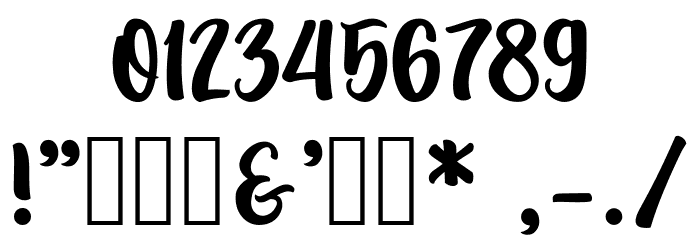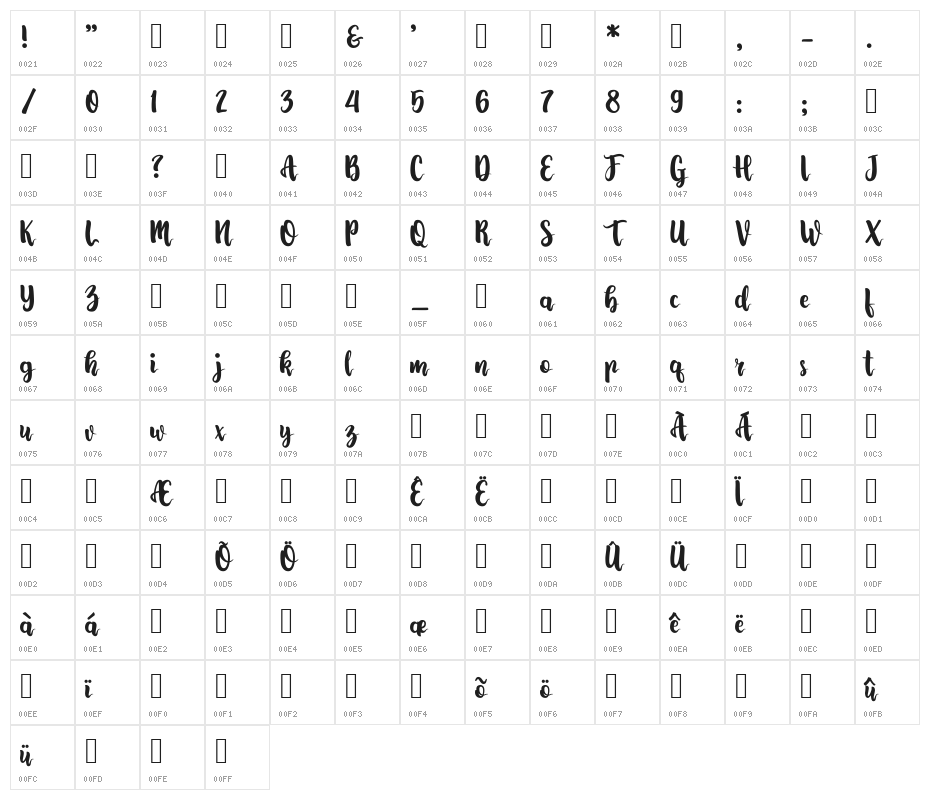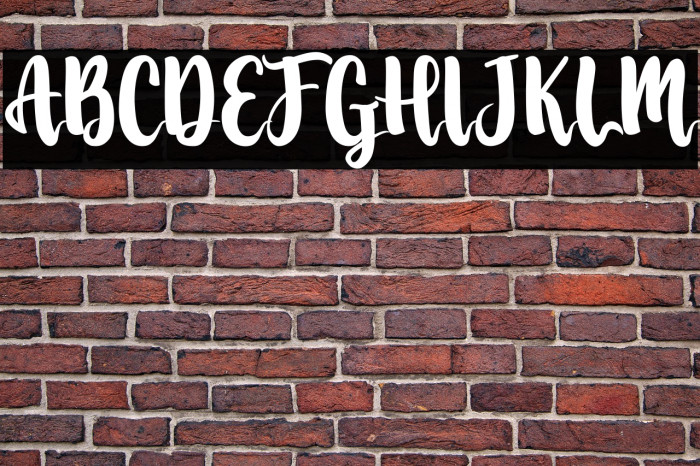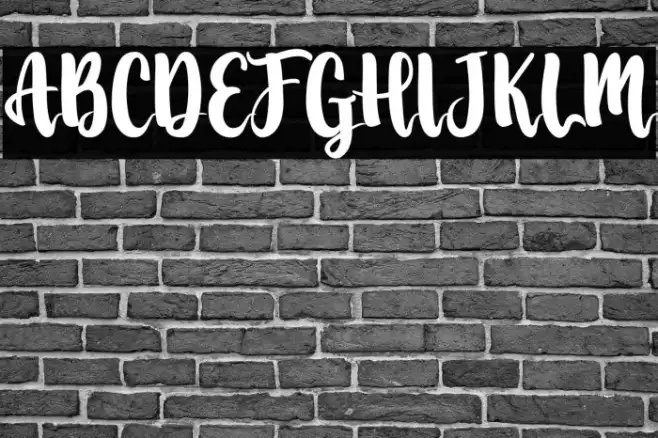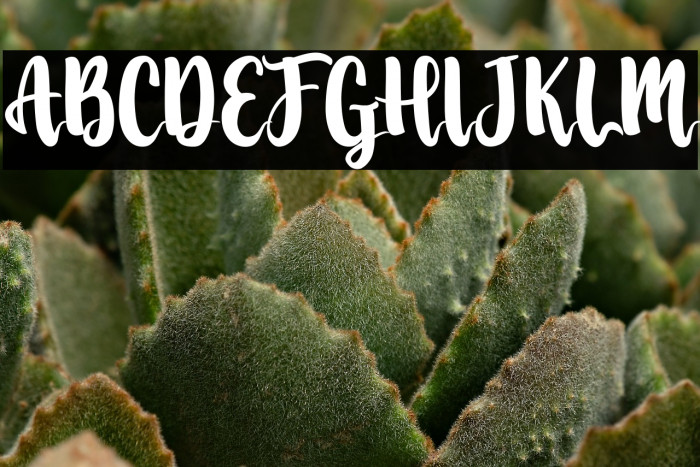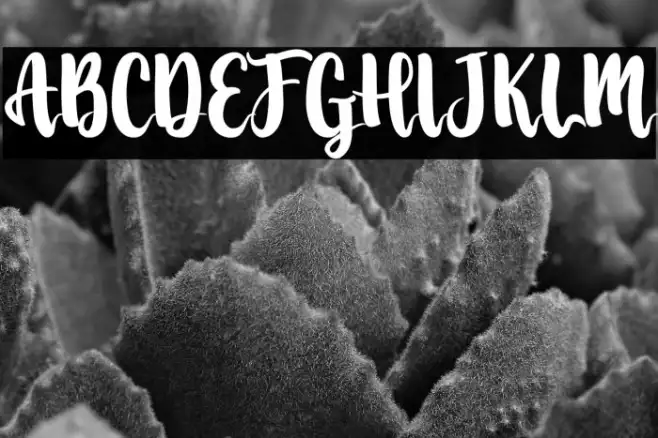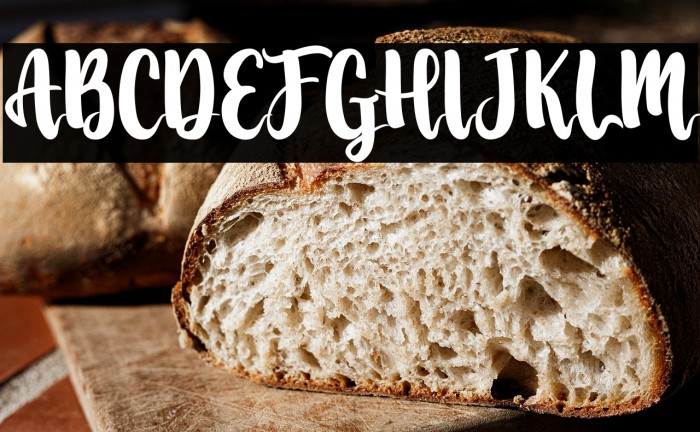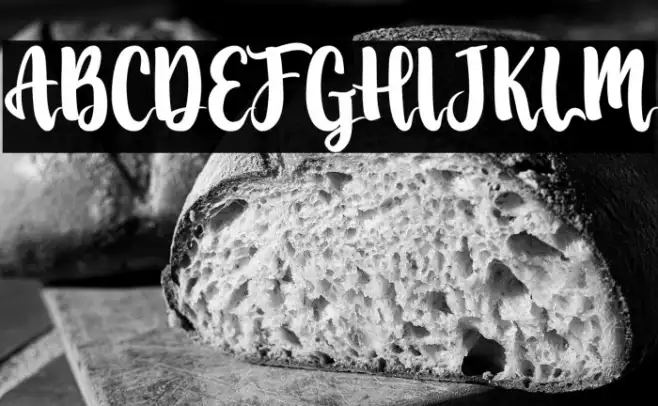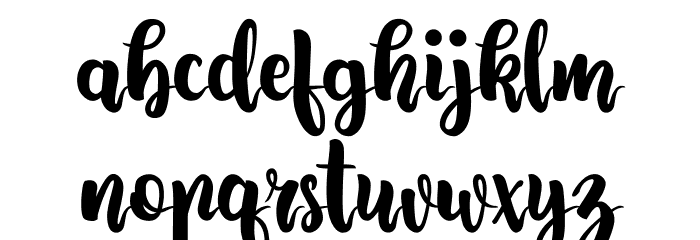
Lovingwave Font
Lovingwave Description
This font features a bold and flowing script style, characterized by its smooth, cursive strokes and playful loops. The letters are connected in a fluid manner, giving it a handwritten feel that is both elegant and casual. The uppercase letters are slightly more ornate, with exaggerated curves and flourishes, while the lowercase letters maintain a consistent flow. The numerals and special characters follow the same stylistic approach, ensuring uniformity across all glyphs. This font is ideal for projects that require a personal touch, such as invitations, greeting cards, or branding materials.